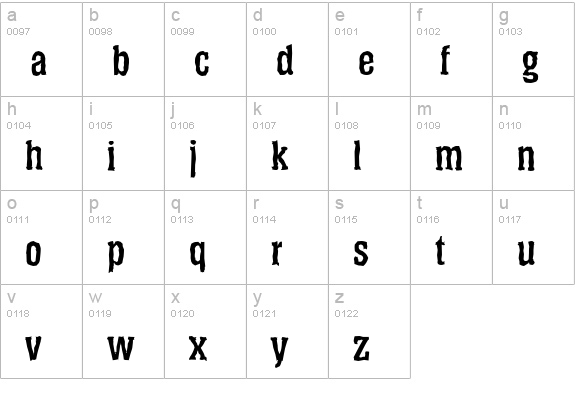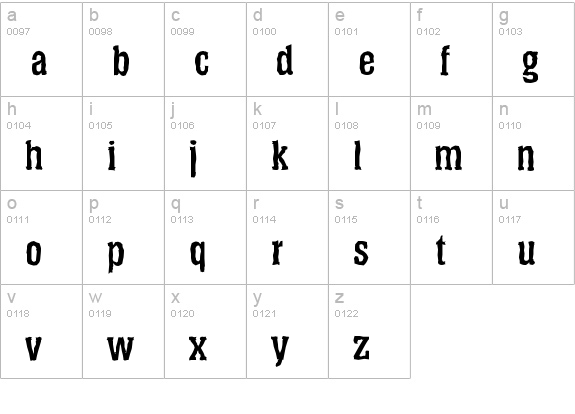
HeliumAntique-Bold Font Details
HeliumAntique-Bold is a strong, high-contrast variant in the HeliumAntique typeface family \xE2\x80\x94 well suited to headlines, attention-grabbing titles, and strong calls-to-action.
HeliumAntique-Bold font is a classic and elegant typeface that exudes sophistication and charm. With its bold and distinct letterforms, this font is perfect for making a statement in your designs. Whether you are creating a vintage-inspired poster, a stylish logo, or elegant wedding invitations, HeliumAntique-Bold offers a timeless appeal that will elevate your projects to new heights. What's even better is that HeliumAntique-Bold is available for free download at FontsMarket.com. Simply visit the website and add this stunning font to your collection without any cost. Embrace the beauty and versatility of HeliumAntique-Bold in your creative endeavors and watch your designs come to life with style and grace.